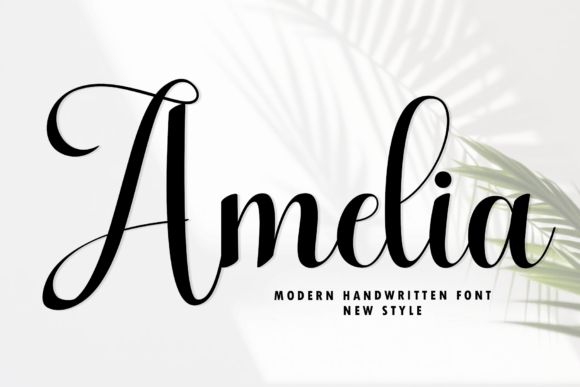
The Elegance of Amelia Font: A Designer’s New Best Friend
I still remember the design project that led me to discover Amelia Font. I was working on a branding project for a high-end boutique, and I was struggling to find the perfect font that would capture the essence of luxury and sophistication. The client wanted a custom, hand-penned feel that would set their brand apart from the competition. After hours of searching, I stumbled upon Amelia Font, and it was love at first sight. The vertically elongated letterforms, the smooth character joins, and the rhythmic visual flourishes all came together to create a truly unique and elegant font.
An Honest Review of Amelia Font
• ✨ Sophisticated and fluid script design that adds a touch of elegance to any project
• ✅ Vertically elongated letterforms that create a sense of luxury and refinement
• ✅ Smooth character joins that mimic elegant ink work on paper
• ✅ Rhythmic visual flourishes that add a touch of personality to each letterform
While Amelia Font is an exceptional choice for many design projects, there are a few things to keep in mind. ⚠️ The font’s elegant design may not be suitable for very small font sizes or body text, as it may lose some of its sophistication. 🤔 Additionally, some users may find that the font’s vertical elongation can make it difficult to read in large blocks of text.
The Designer Inspiration Behind Amelia Font
Amelia Font was designed with the goal of creating a sophisticated and elegant script font that would bring a touch of luxury and refinement to contemporary creative projects. The designer’s inspiration was drawn from the world of high-end calligraphy and lettering, where the art of beautiful handwriting is still highly valued. The result is a font that is both elegant and refined, with a unique sense of personality and style.
Q: What is Amelia Font best suited for?
A: Amelia Font is best suited for boutique brand identities, personal signature watermarks, elegant lifestyle marketing, and professional social media headers.
Q: Can I use Amelia Font for body text?
A: While Amelia Font is an exceptional choice for many design projects, it may not be the best choice for body text due to its elegant and refined design. It’s best suited for headlines, titles, and other display text.
Q: Is Amelia Font available in different weights or styles?
A: Yes, Amelia Font is available in a range of weights and styles, including regular, italic, and bold. This allows you to create a range of different looks and effects with the font.